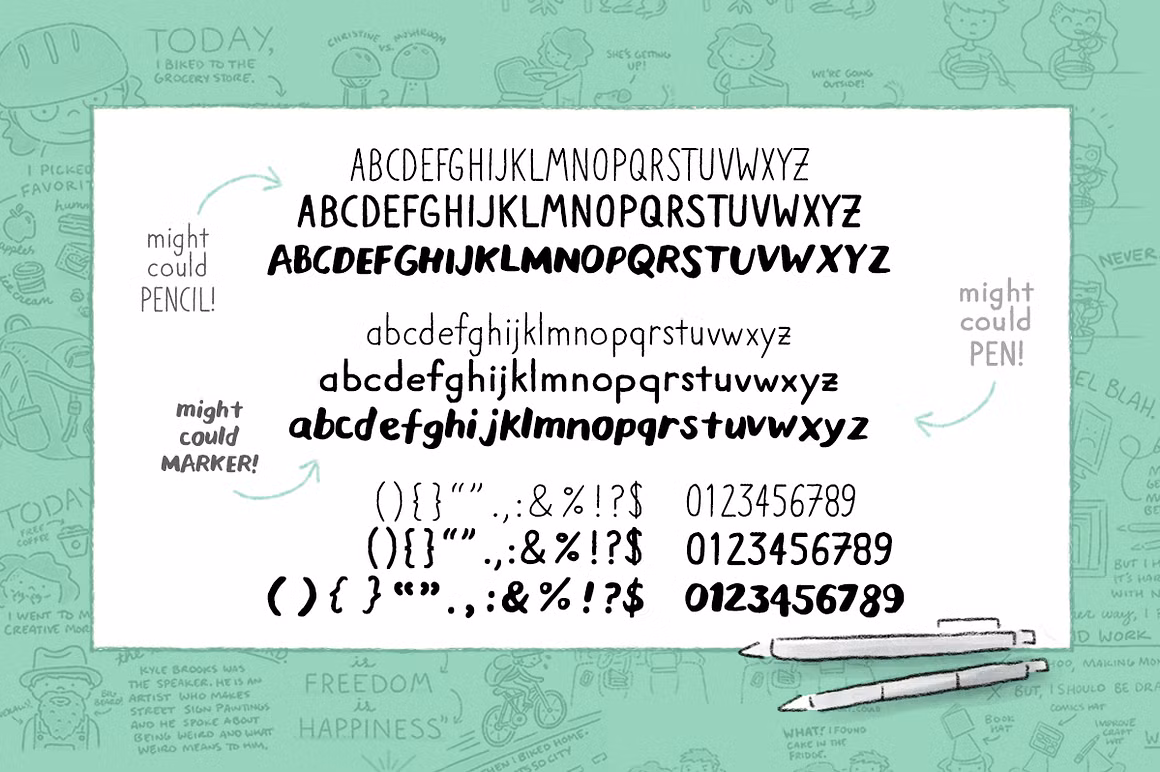
Might Could Drawing Tools Font Trio (3 Fonts)
This product includes 3 fonts designed to look like hand-drawn lettering: Might Could Pencil, Might Could Pen, and Might Could Marker!
I hand-draw a lot of typography for my comics, books, and promotional material, so I made my handwriting into a font and then designed two more fonts to pair with it! This pack includes all three fonts.
All these fonts are both hand-drawn in my own handwriting and are vectorized fonts. They're perfect for comics, graphic novels, books, invitations, business cards, or any other designer-y project you've got going on!